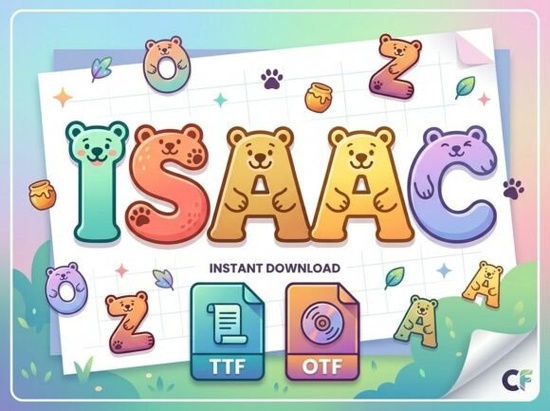
Isaac Font is a unique decorative typeface that brings a sense of warmth and playfulness to any design project. Designed with soft, rounded shapes and adorable bear-like features, this font is ideal for creating content that feels safe, sweet, and undeniably charming. Whether you're working on nursery decor, baby shower invitations, or children's apparel, Isaac adds a touch of whimsy that stands out.
What Makes Isaac Font Stand Out?
Isaac Font is more than just a typeface it’s a visual experience. Each letter is designed to resemble a friendly bear, making it an excellent option for projects that aim to evoke a sense of comfort and joy. The font’s playful nature makes it especially suitable for children’s products, where the goal is to create a welcoming and affectionate atmosphere.
Unlike more traditional fonts, Isaac adds a layer of character that can make your designs feel more personal and engaging. Its rounded forms and expressive details help to convey a sense of innocence and warmth, which is essential for projects targeting young audiences or families.
Best Uses for Isaac Font
- Nursery decor: Use Isaac to add a cozy, inviting feel to baby rooms or play areas.
- Baby shower invitations: Make your event stand out with a font that feels as special as the occasion.
- Toy packaging: Create eye-catching labels that appeal to both kids and parents.
- Children’s apparel: Add a fun, personalized touch to t-shirts, onesies, and other clothing items.
The versatility of Isaac Font allows it to be used across multiple platforms, from digital graphics to printed materials. Its clear legibility ensures that it remains effective even when used in smaller sizes or on different backgrounds.
How to Incorporate Isaac Font into Your Projects
When using Isaac Font, consider the overall tone of your design. Since it’s a decorative font, it works best when paired with simpler elements that don’t compete with its visual appeal. For example, combining it with a clean sans-serif font can create a balanced look that’s both stylish and easy to read.
Experiment with different color schemes to see how Isaac responds. Bright, pastel shades often enhance the font’s playful nature, while muted tones can give it a more subtle, elegant feel. Don’t be afraid to test various layouts to find what works best for your specific project.
Whether you're a designer, crafter, print-on-demand seller, or small business owner, Isaac Font offers a fresh and appealing way to express your creativity. Its unique design and wide range of applications make it a valuable addition to any digital toolkit.
Before finalizing your project, take a moment to review how Isaac looks in different contexts. Test it on various devices and print formats to ensure it meets your expectations. By doing so, you can confidently use this font to bring a touch of warmth and charm to your work.
As you continue exploring creative fonts, remember that the right choice can make a big difference in how your message is received. Isaac Font is just one of many options available, but its combination of style and functionality makes it a standout choice for anyone looking to add a little bit of magic to their designs.
Take a closer look at Isaac Font and see how it can enhance your next project. With its friendly appearance and versatile use, it’s sure to become a favorite among designers who value both aesthetics and functionality.